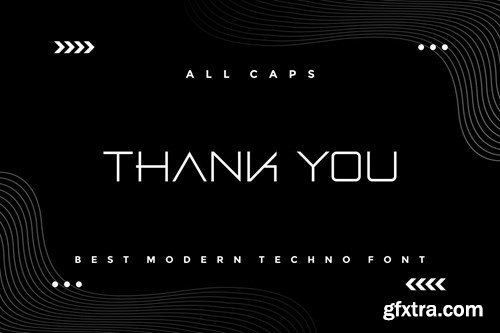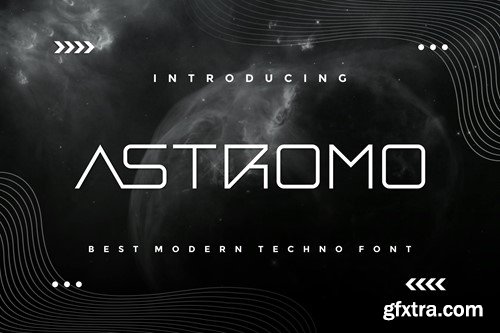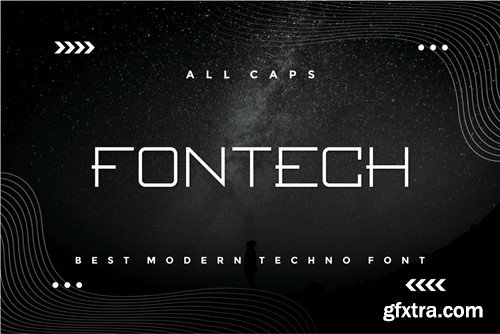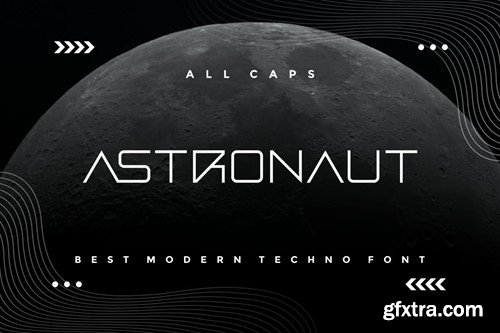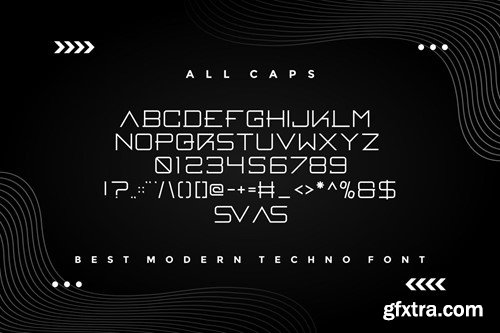
Astromo - Modern Techno Font RMFA7ET
Astromo - Modern Techno Font
Astromo is a bold, modern display font with playful flair, ideal for attention-grabbing headlines, logos, and diverse design projects. Versatile and readable in both digital and print, Astromo adds a dynamic touch to your message.
• Uppercase